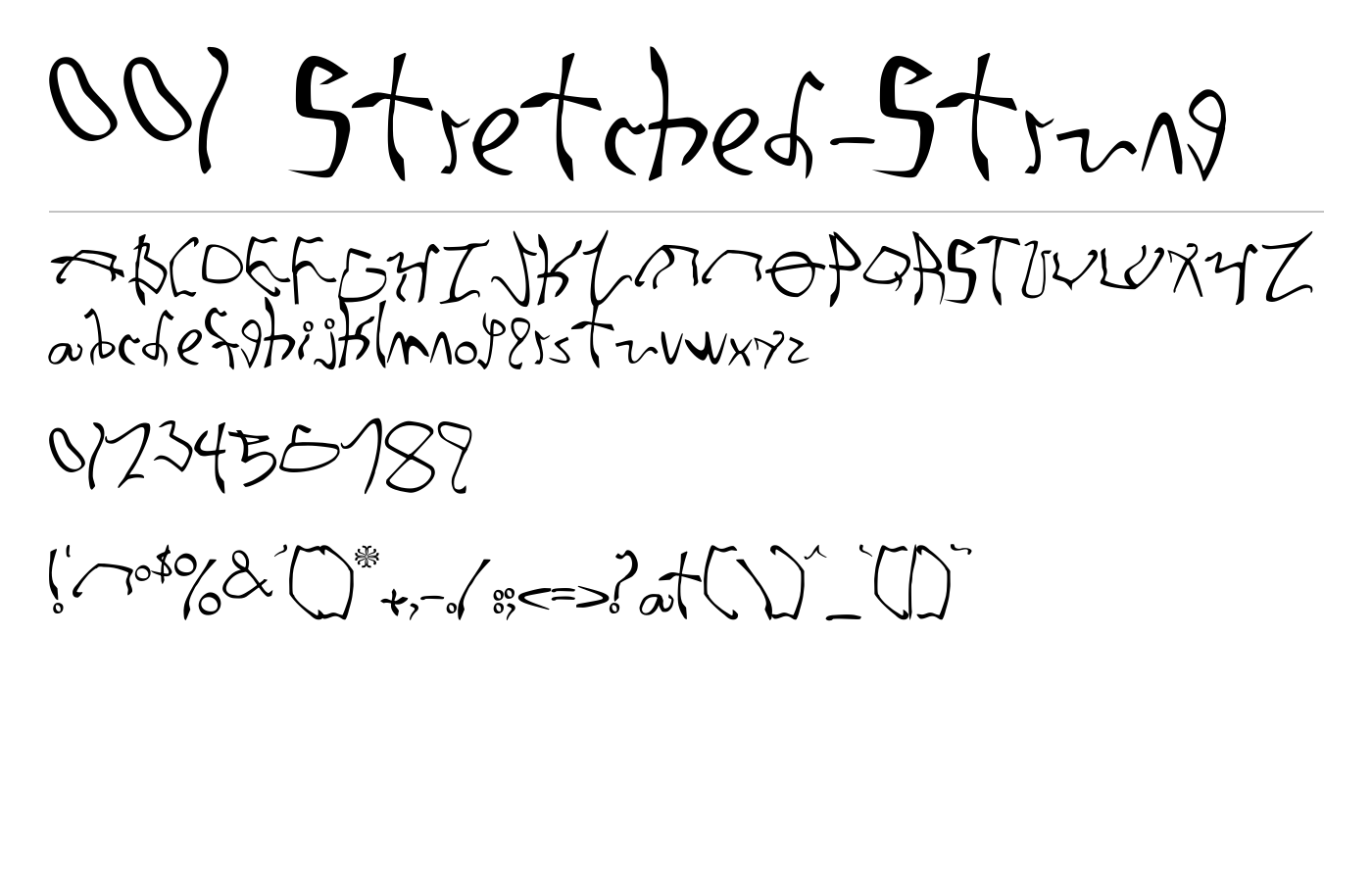
001 Stretched-Strung is a quirky, handwritten-style sans serif font characterized by its extremely narrow, elongated letterforms and irregular, playful strokes. Its organic, sketch-like appearance gives off a casual and artistic vibe, perfect for creative projects that seek a unique, hand-crafted feel. This font works best for eye-catching headlines, artistic branding, and informal designs where personality and individuality are key.
001 Stretched-Strung Font